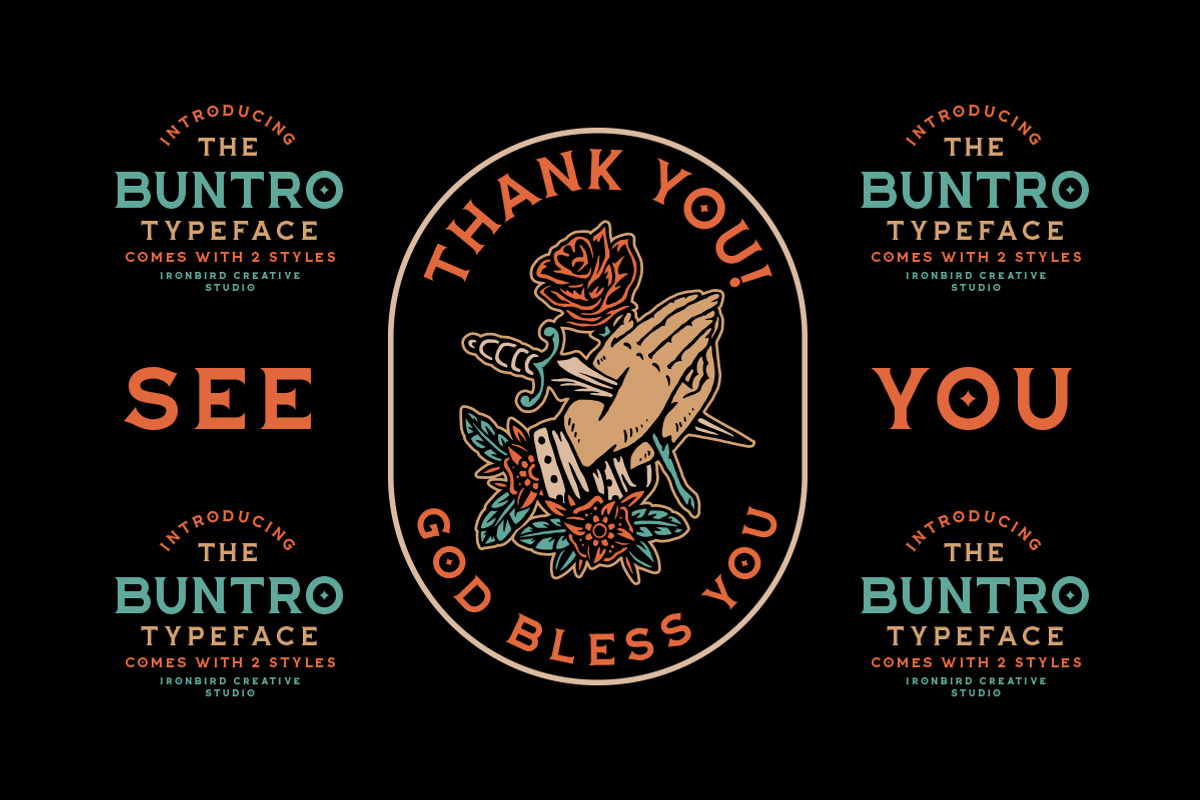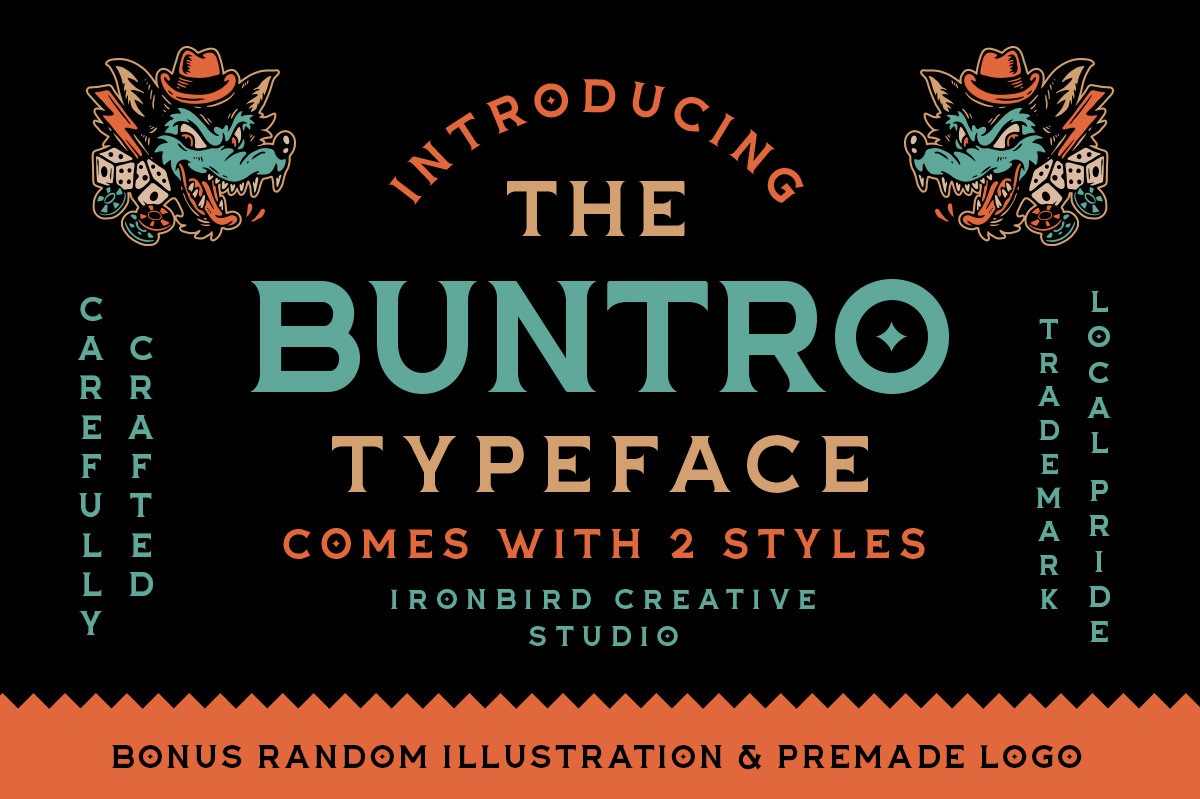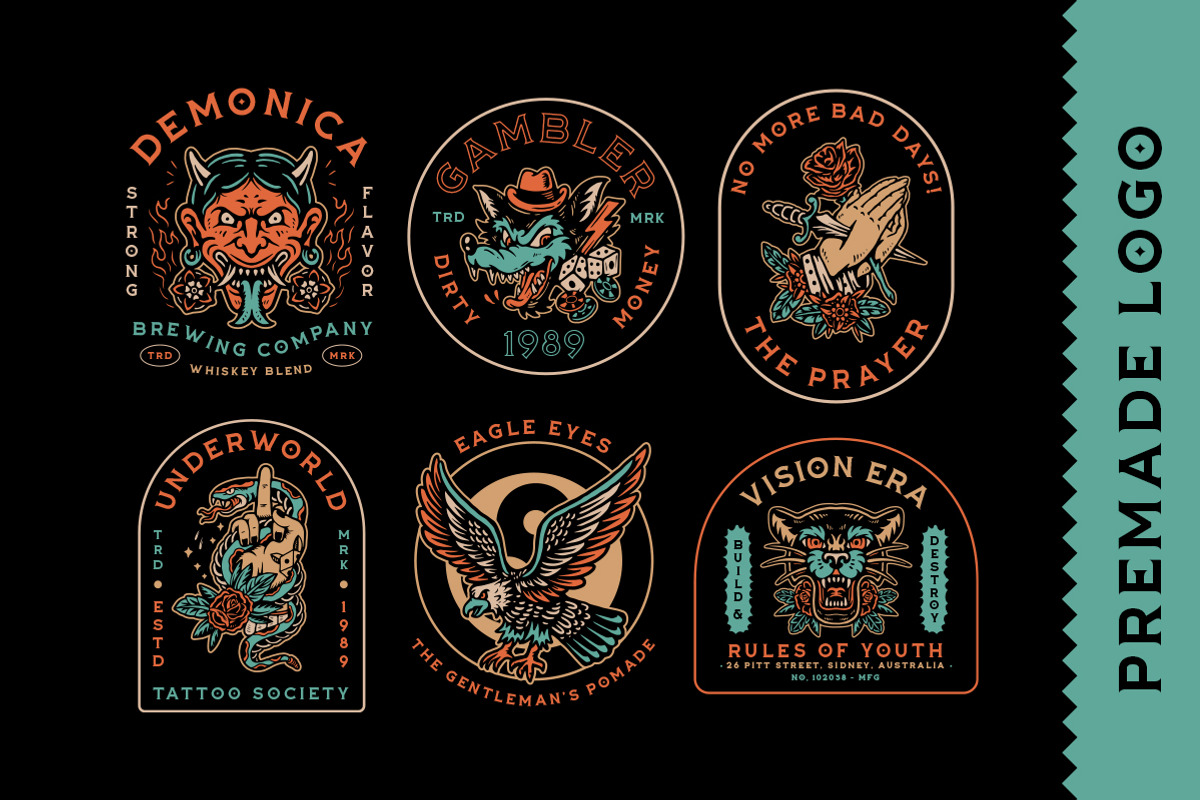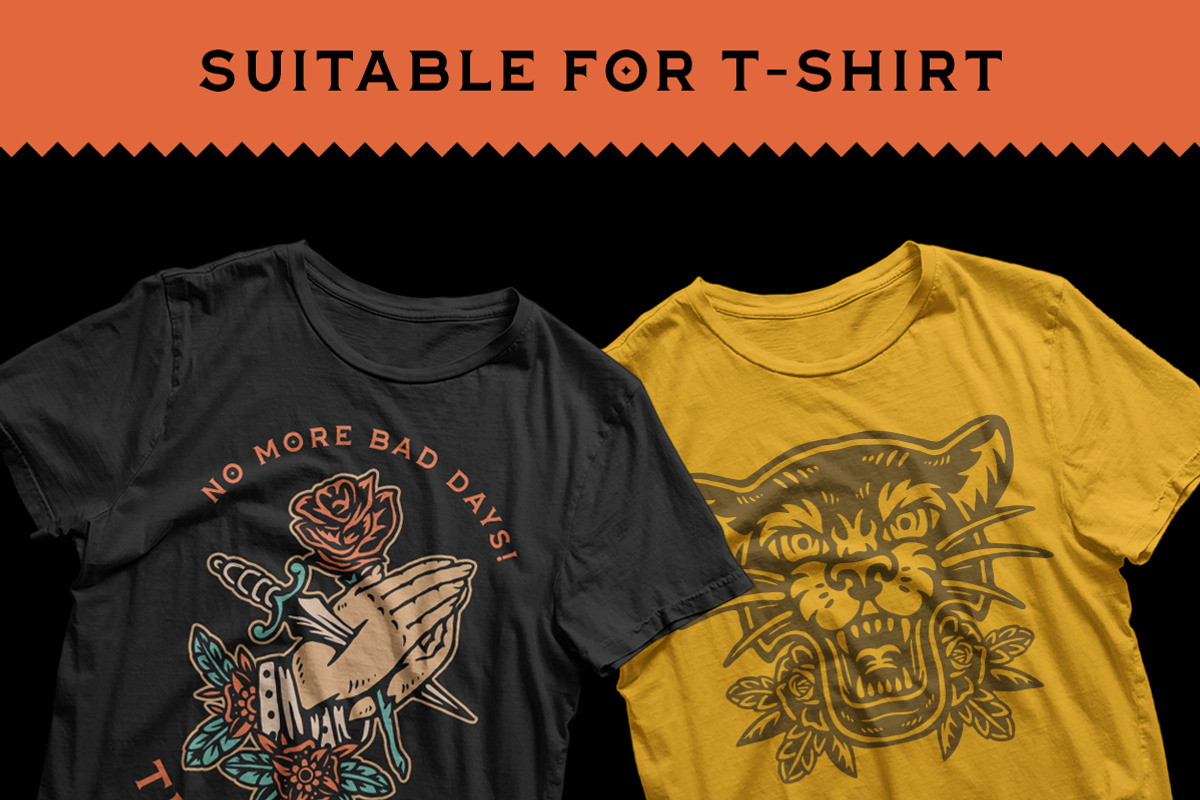
The Buntro Typeface (+EXTRA)
The Buntro is a Display Typeface designed with carefully crafted. Comes with 2 Styles, Regular and Outline. This is a simple yet refined All-Caps Typeface. Also suitable for Branding & Packaging, Poster Design, T-shirt, Tattoo Design, Logotype, and any project. This font also come with FREE illustrations and logo pack to make better design. Support multilingual, number and symbol, alternates, and already PUA Encoded.
Multilingual Support many different languages. Included AÀÁÂÃÄÅCÇDÐEÈÉÊËIÌÍÎÏNÑOØÒÓÔÕÖUÙÜÚÛWYÝiŸỲŸÆŒßÞþ